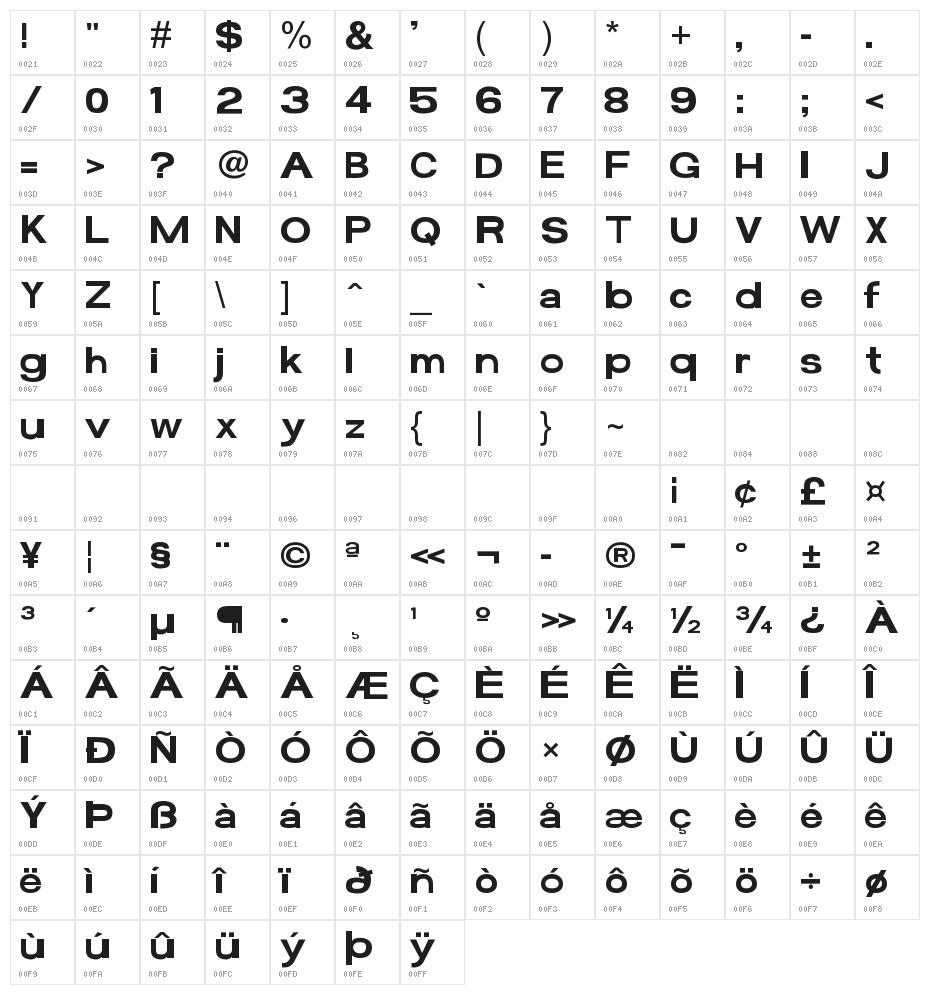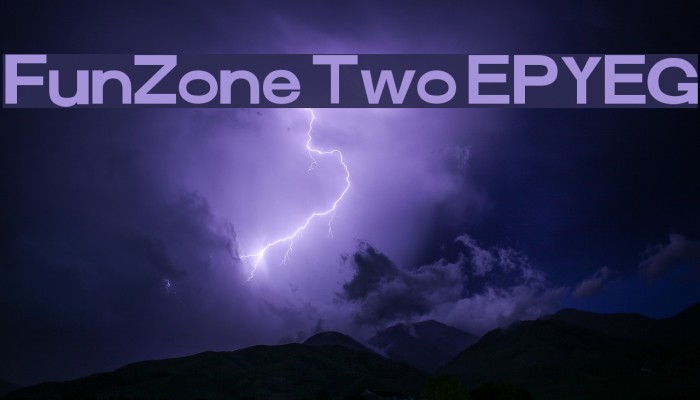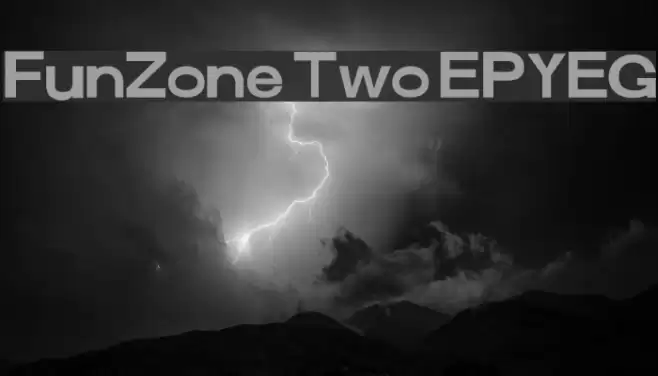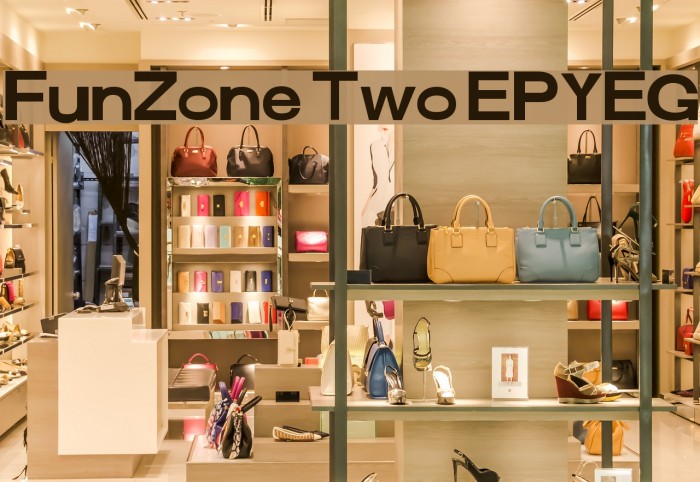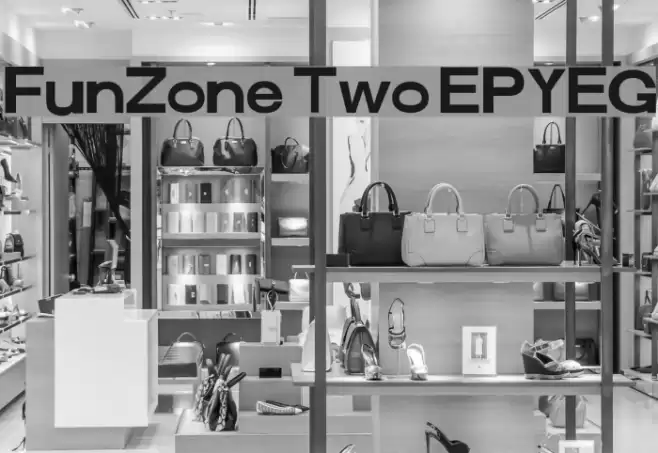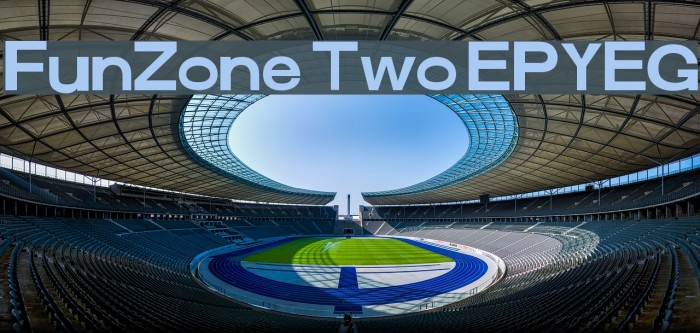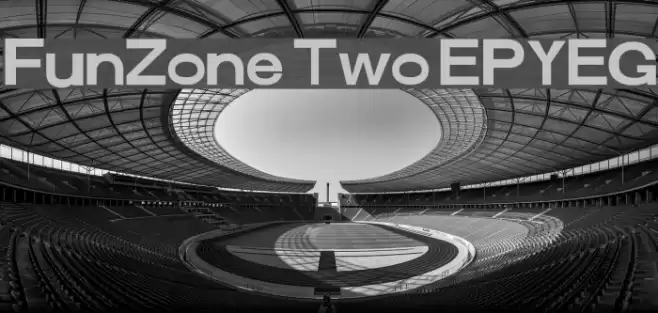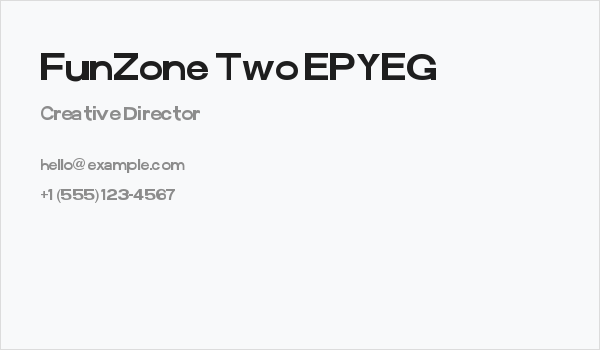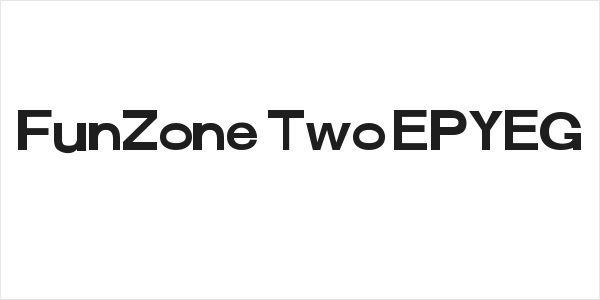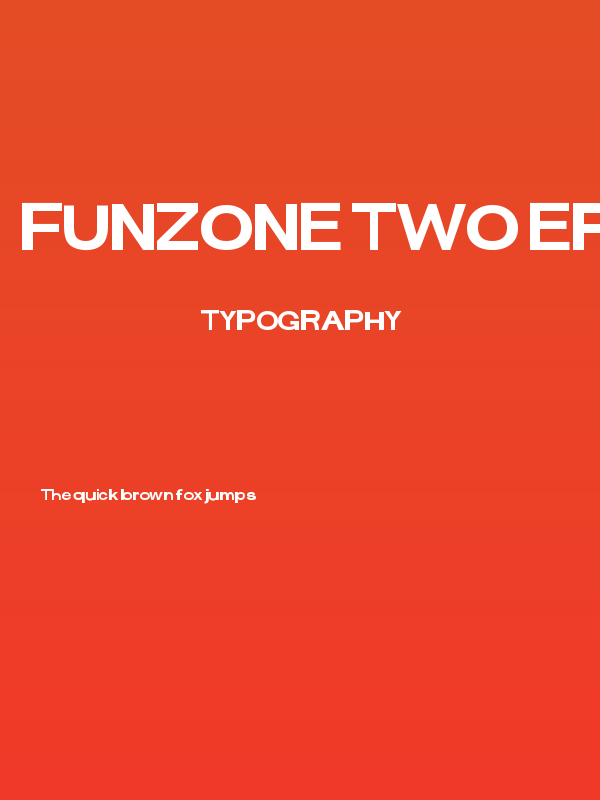
FunZone Two EPYEG Font
FunZone Two EPYEG Description
This font features a bold and modern sans-serif style with clean lines and a strong presence. The uppercase letters are uniformly structured, providing a sense of stability and confidence. The lowercase letters maintain a consistent height, contributing to a balanced and harmonious appearance. The numerals are clear and legible, making them suitable for various applications. Special characters are well-defined, ensuring versatility in design projects. The overall aesthetic is sleek and contemporary, making it ideal for projects that require a bold and impactful visual statement.
| Proposed Projects | Ideal for branding, advertising, headlines, and digital media projects. |